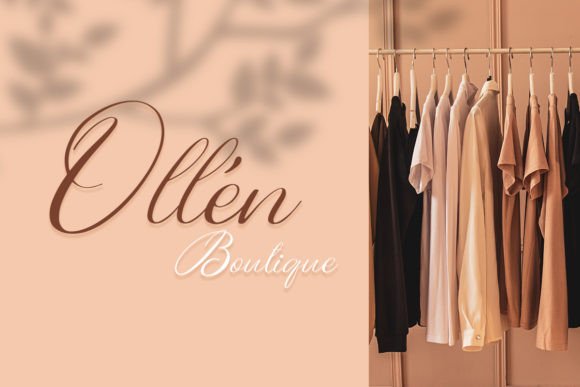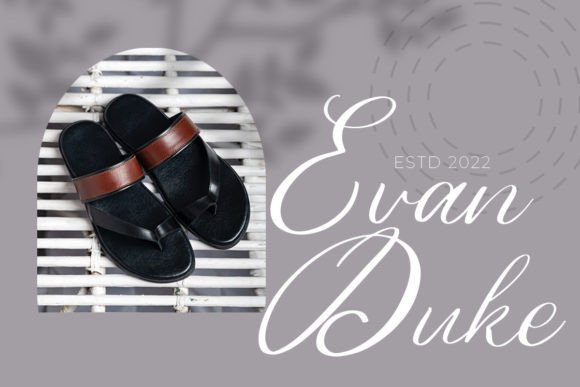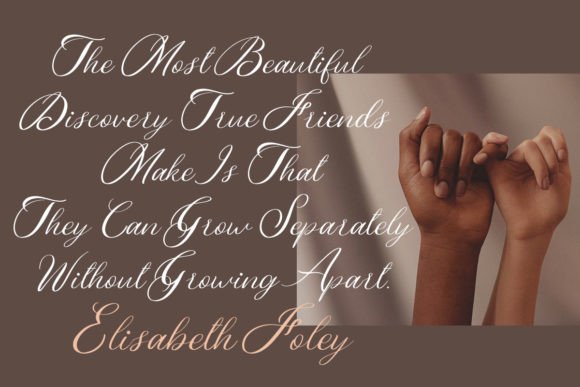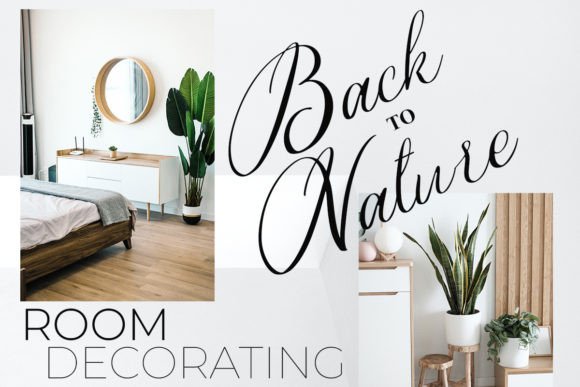
Magnolia Font
About Magnolia Font
“Magnolia” is an elegant script font designed with a sophisticated shape, making it a perfect choice for various applications. This font is particularly well-suited for weddings, brochures, wedding invitations, shop labels, online shop labels, and boutique branding. Its elegant and flowing style adds a touch of refinement to your designs.
The thoughtful kerning of “Magnolia” ensures that the spacing between letters is arranged neatly, providing ease of use and enhancing the overall visual appeal of the text. This makes the font user-friendly and suitable for a variety of design projects.
Imagine “Magnolia” gracing the invitations of a luxurious wedding, where its elegant script adds a romantic and timeless touch. Picture it on shop labels, creating a sophisticated and stylish brand presence for boutiques. Envision this font used in online shops, enhancing the visual identity of products.
Whether you’re working on commercial projects or personal creative endeavors, “Magnolia” invites you to utilize its elegant script style to bring a touch of sophistication to your designs. Let it be the key element that elevates your visual communication, creating an atmosphere of refinement and elegance.